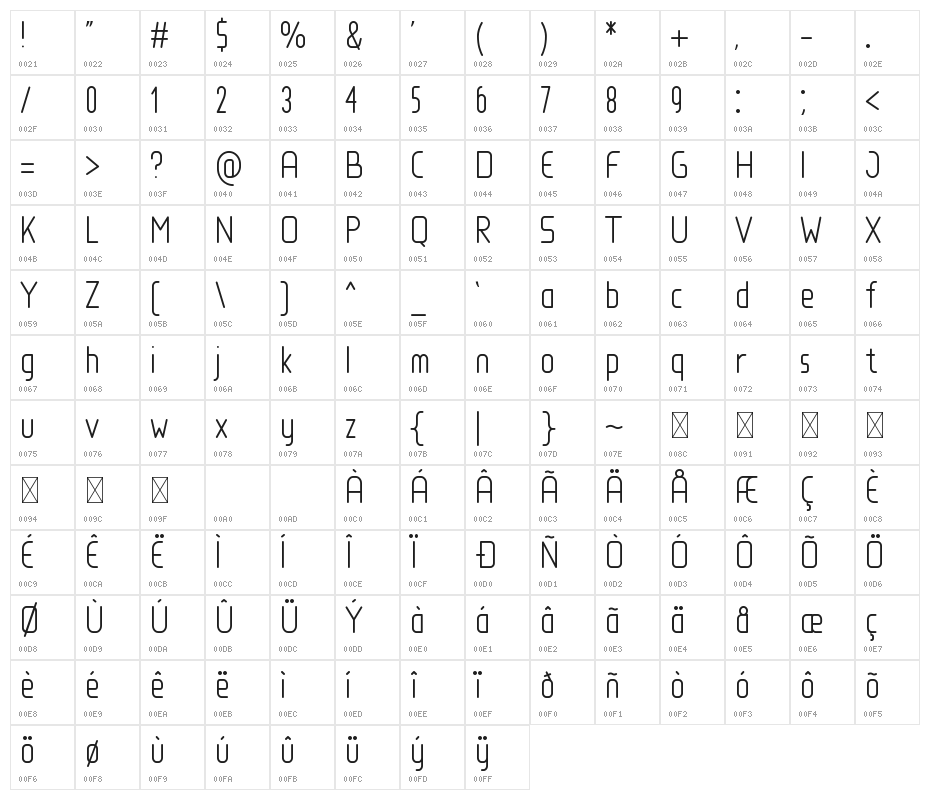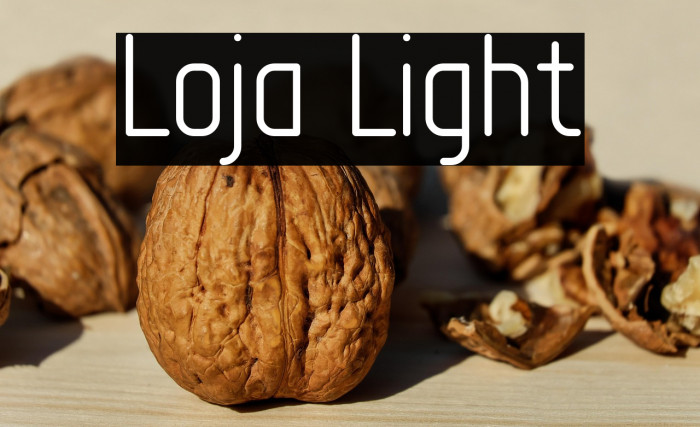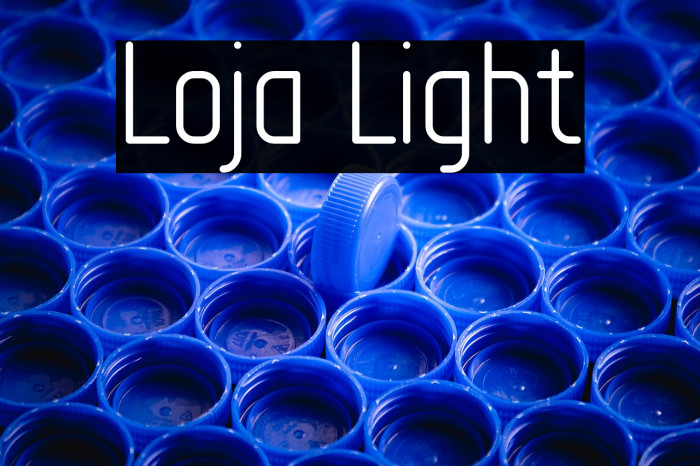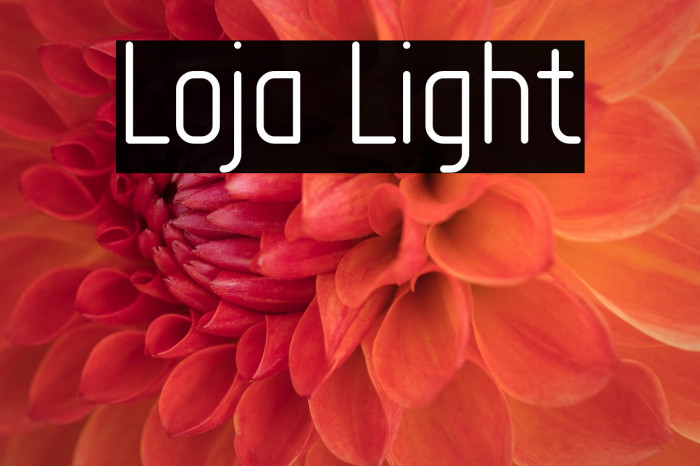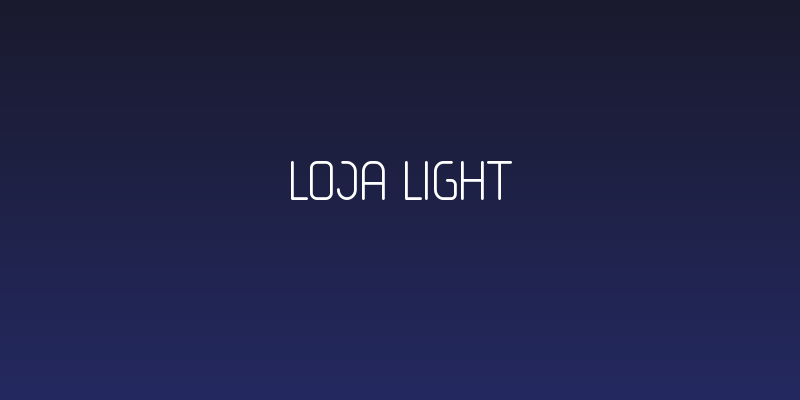
Loja Light Font
Loja Light Description
This font features a sleek, modern design with clean lines and a geometric structure. The characters are crafted with a uniform stroke width, giving it a balanced and harmonious appearance. The uppercase letters are tall and slightly condensed, while the lowercase letters maintain a consistent height, enhancing readability. The numerals are distinct and clear, making them suitable for various applications. Special characters are well-defined, adding versatility to the font. Its minimalist style makes it ideal for contemporary design projects, where clarity and simplicity are key.
| Width | Condensed |
| Use Case | Headlines, Body text, Logos |
| Proposed Projects | Ideal for branding, digital interfaces, signage, and editorial design. |